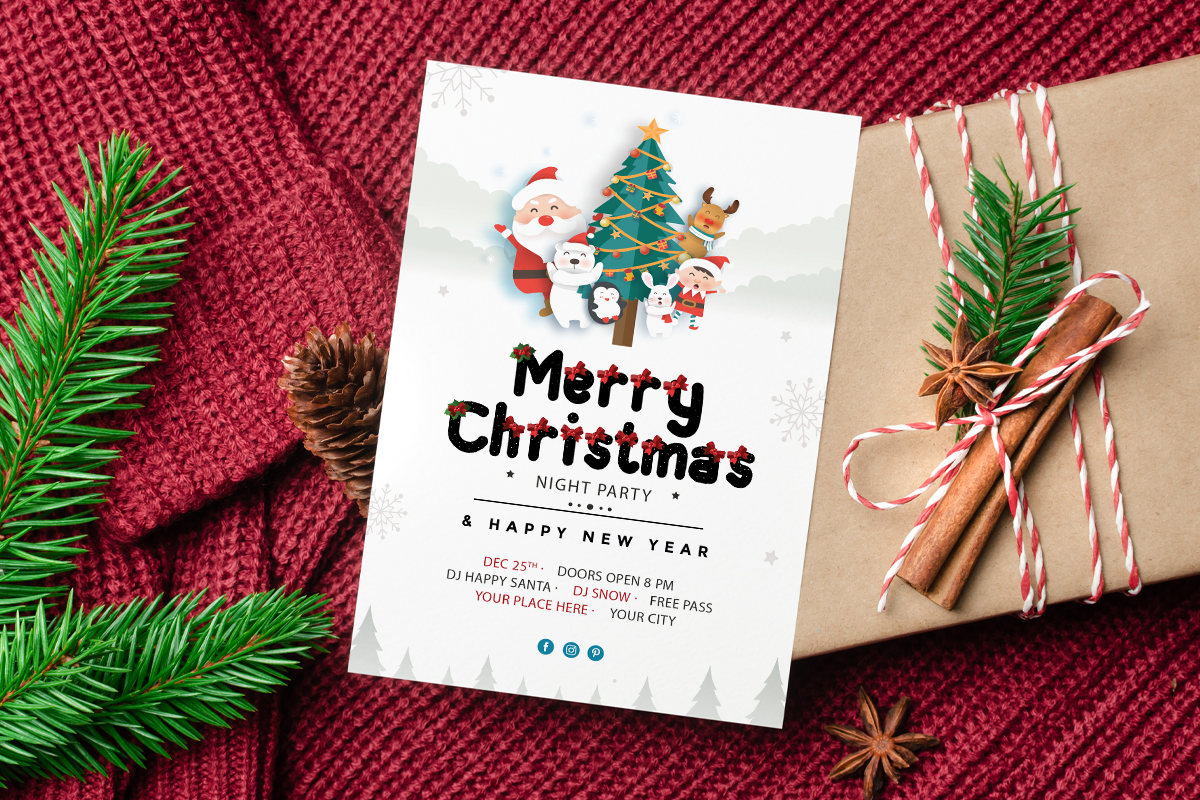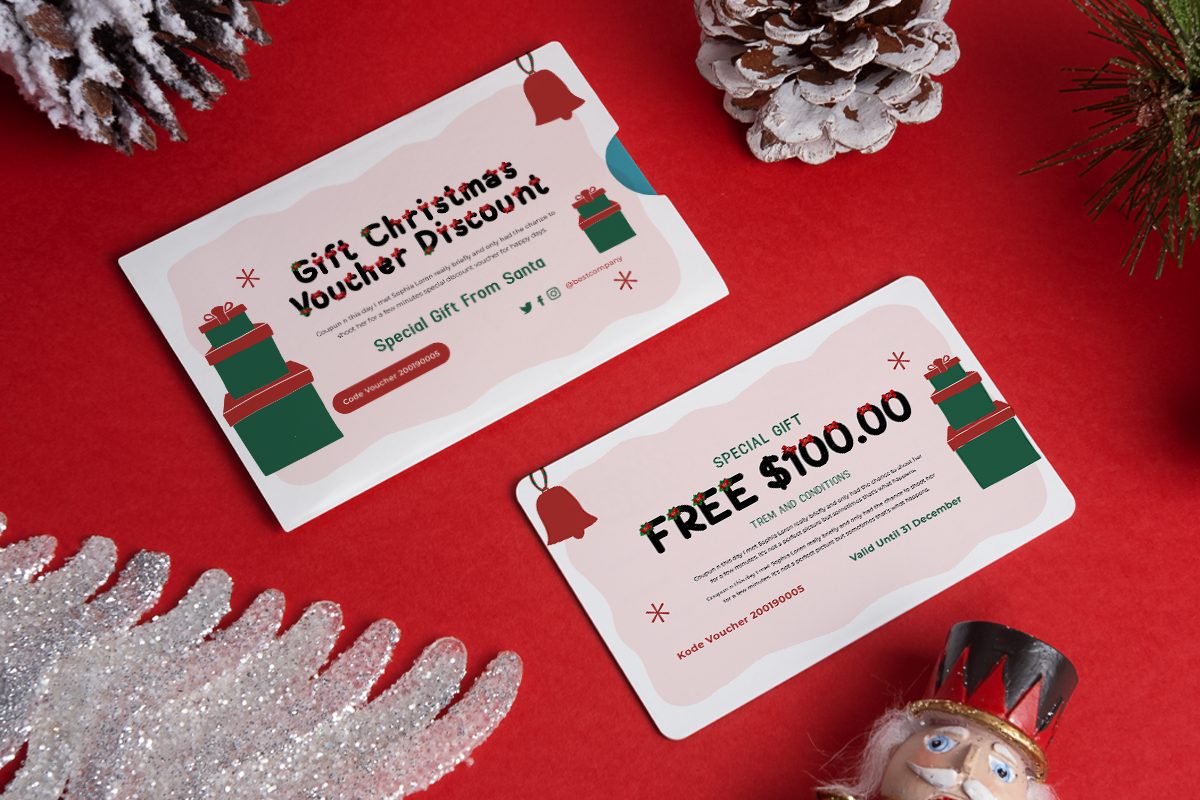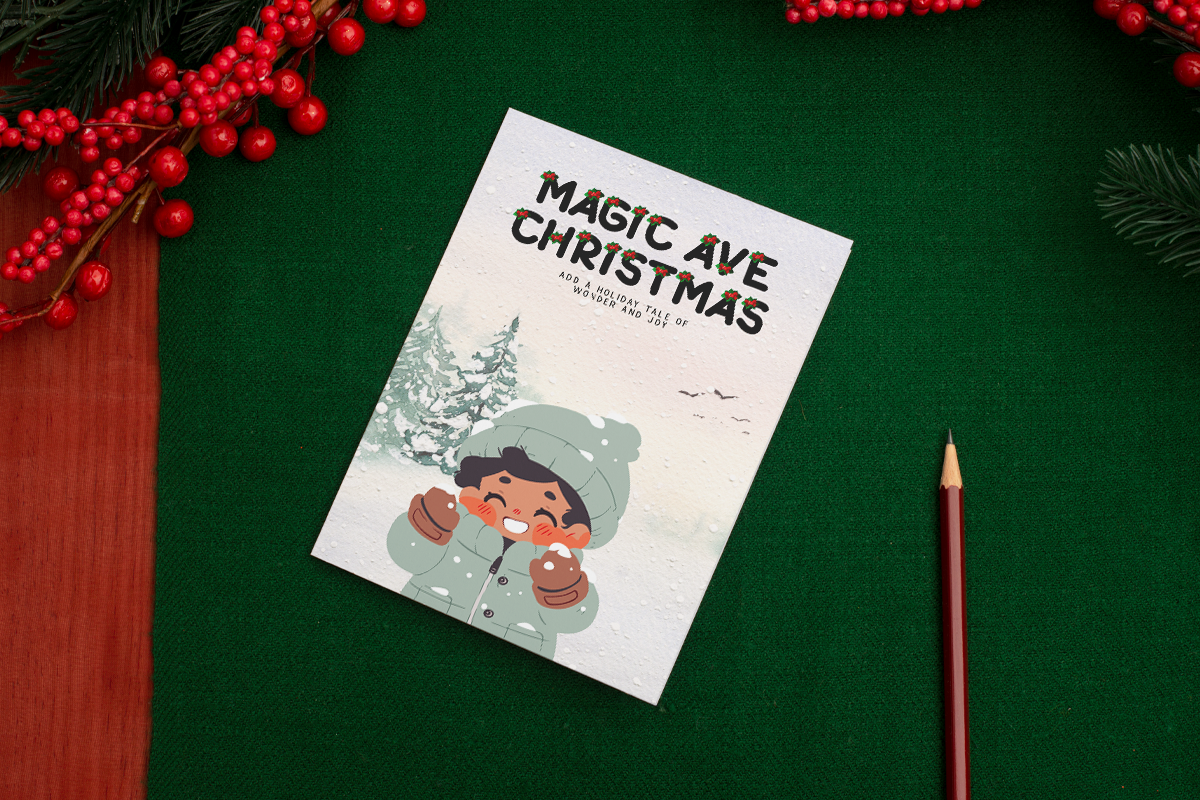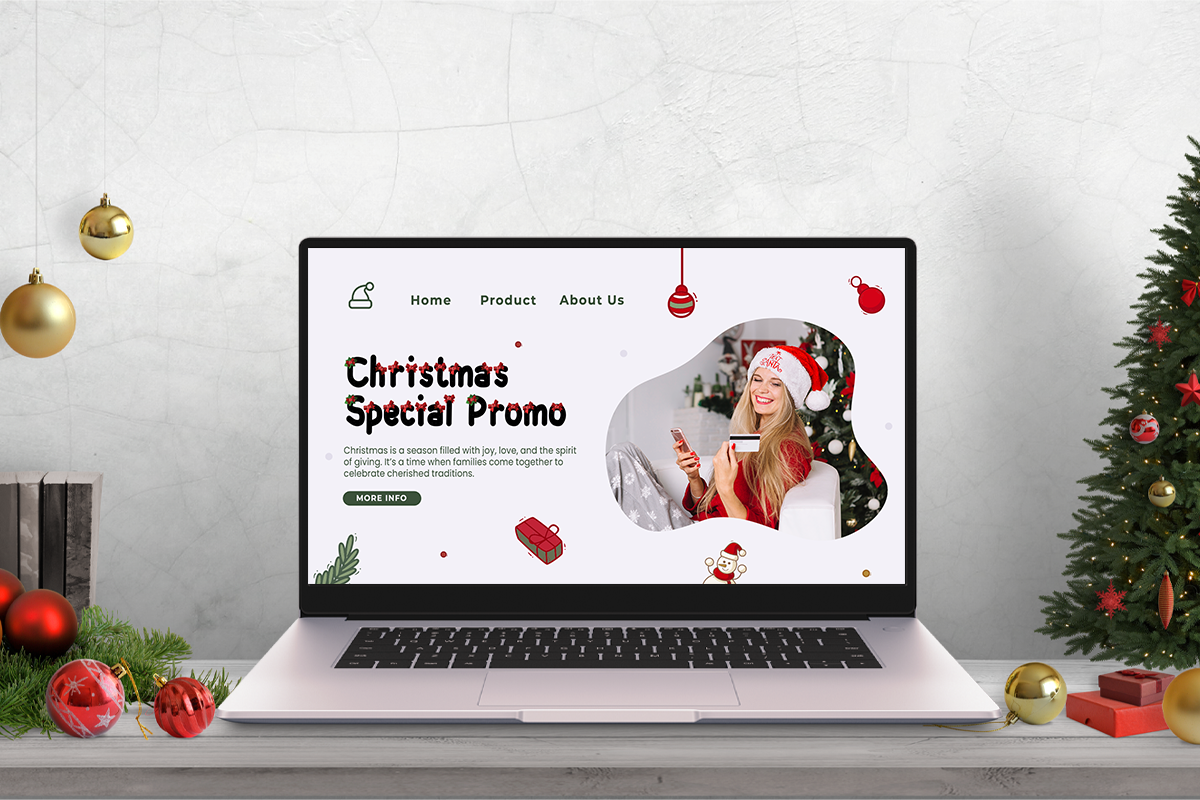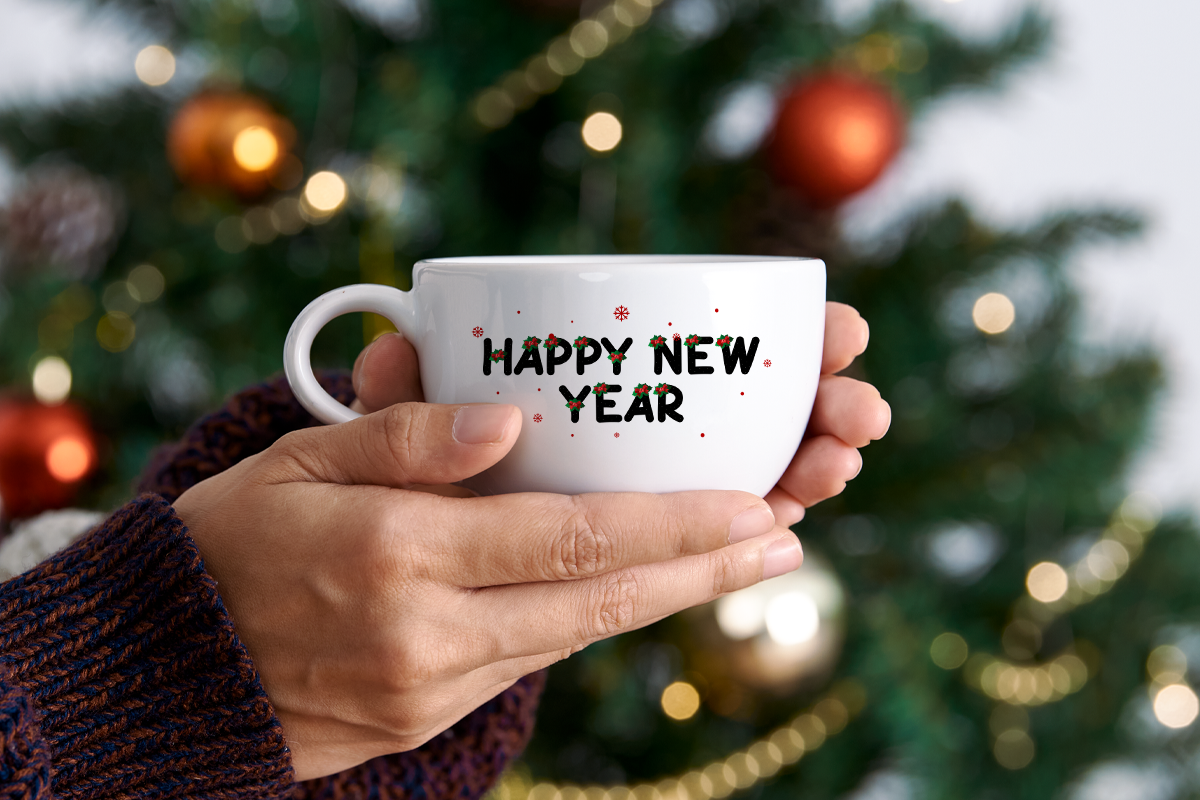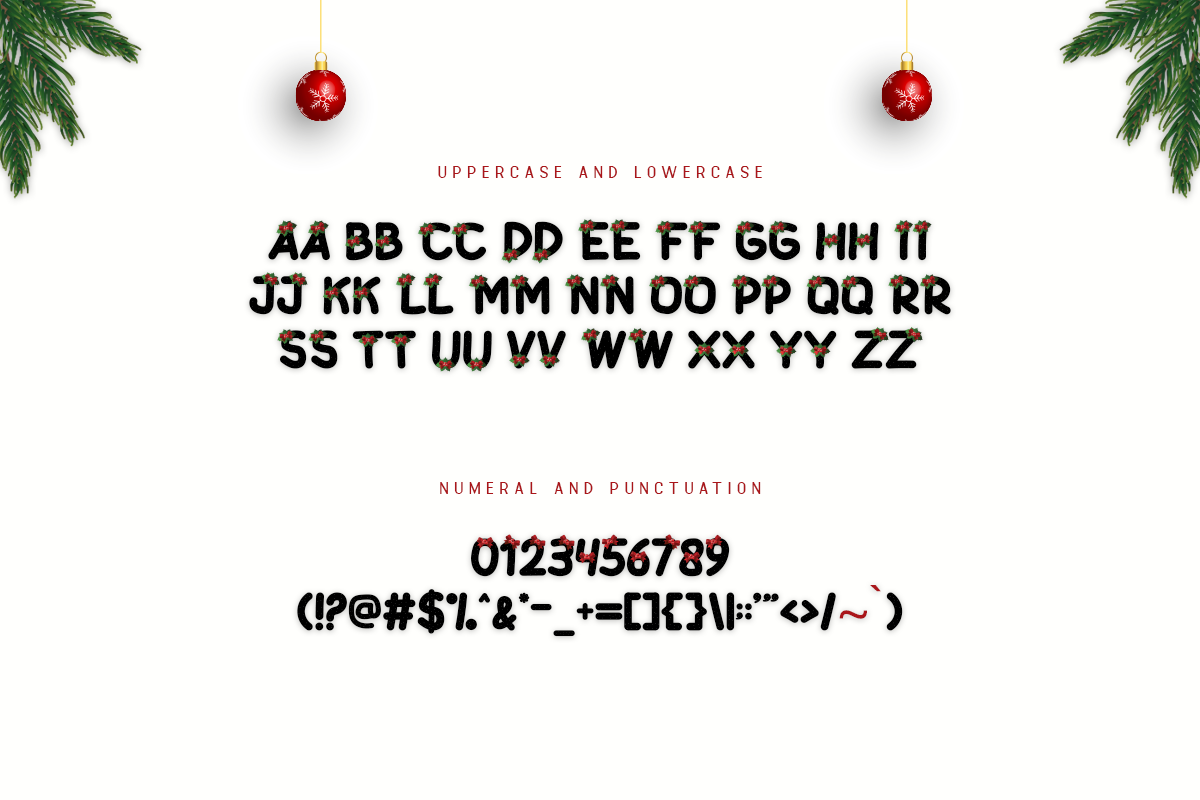
Christmas Bow Modern Decorative Christmas Font
Christmas Bow Modern Decorative Christmas Font is a part of the display fonts. This font is one of the best collections of Christmas fonts that you can check out on the Kong Font website. This font has unique characteristics, is beautiful, and looks fun. Also, we can see how Christmas Bow Modern Decorative Christmas Font is in illegible font. This font has some Christmas decorations in the shape.
The characteristics description of Christmas Bow Modern Decorative Christmas Font above shows how this font looks so unique and cute. The unique characteristic is the difference between the Christmas Bow Modern Decorative Christmas Font and other fonts. This font can be used with small or large font sizes.
The excellent impression and characteristics of Christmas Bow Modern Decorative Christmas Font can make it one of the best Christmas fonts that can be used for clothing item designs such as writing on hoodies, t-shirts, and hats. Snow Boom font can be used for a logo that has a Christmas or cartoon theme.